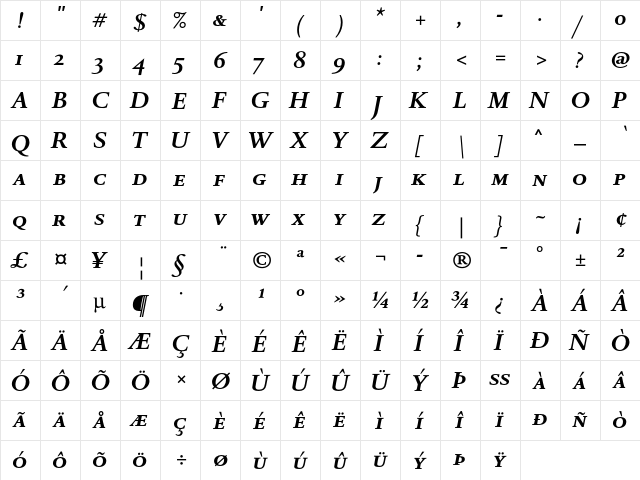
Design Context for DTLRomulusTCaps Typeface
DTLRomulusTCaps takes a measured approach to typography — its balanced proportions and neutral character make it a reliable workhorse for both digital and print work.
Pro Tip: Use DTLRomulusTCaps in both headline and body roles to test its range before committing to a single application.